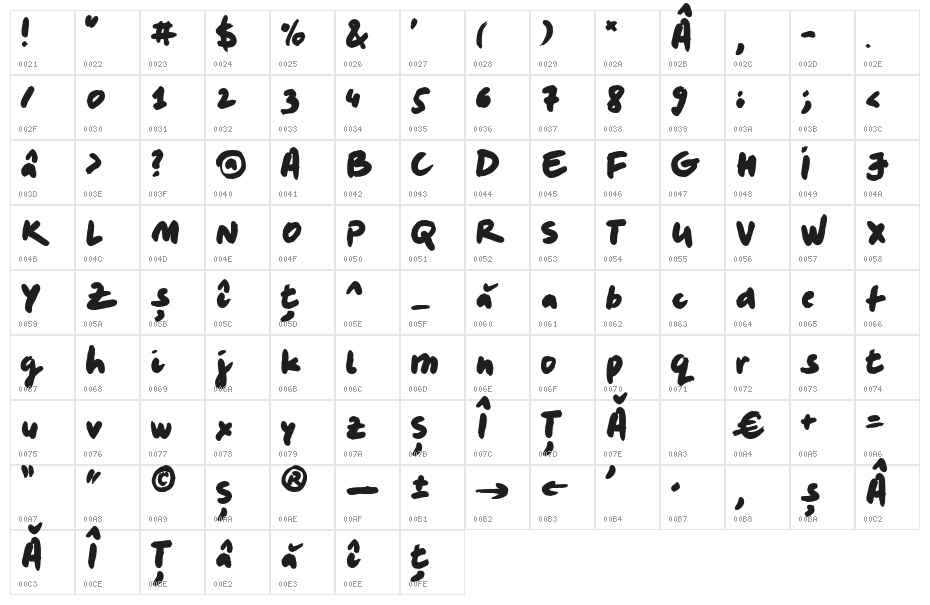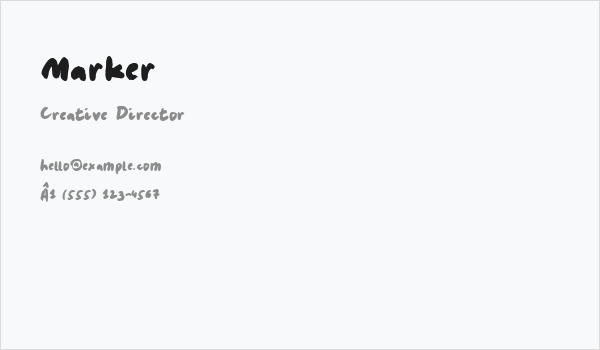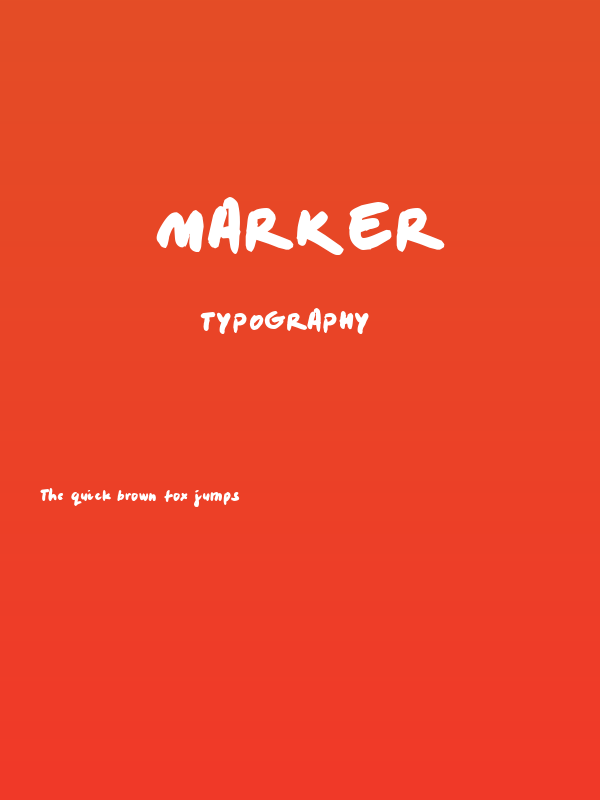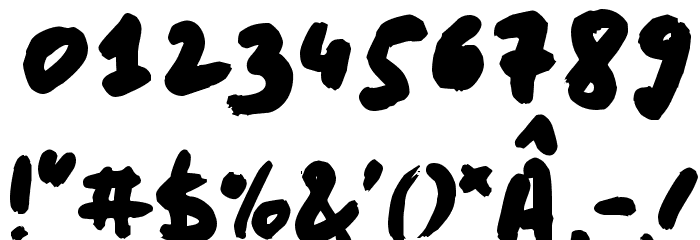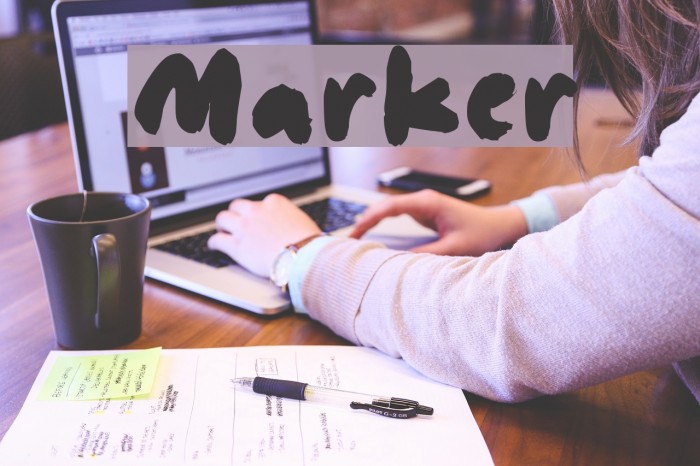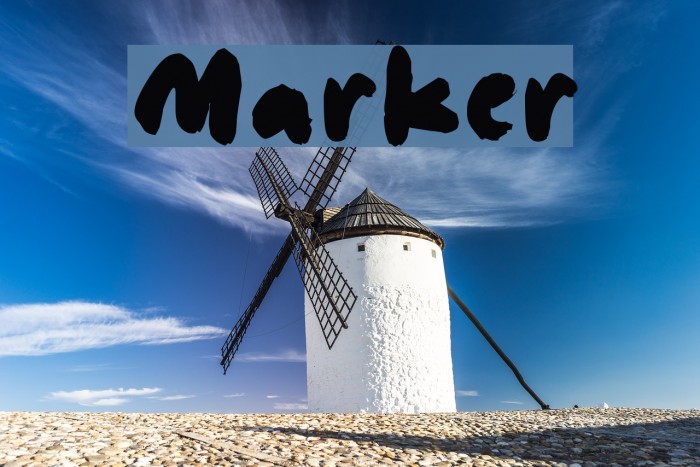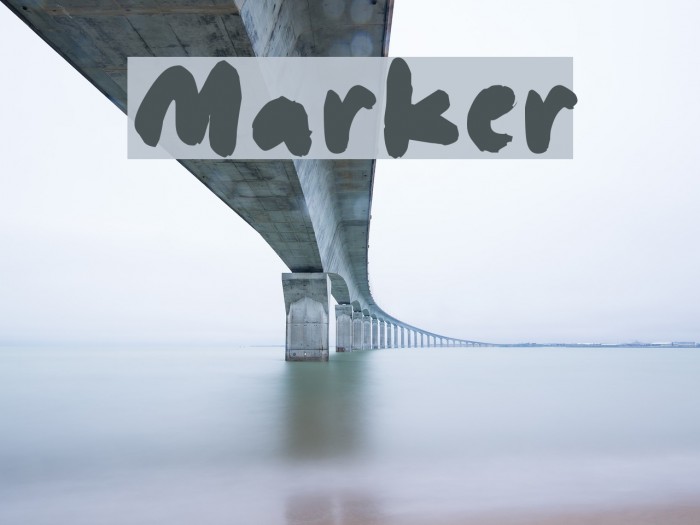
Marker Font
Marker Description
This font exudes a bold and expressive style, reminiscent of hand-drawn marker strokes. The characters are thick and rounded, with a casual and informal appearance. The uppercase and lowercase letters maintain a consistent weight, creating a cohesive look. The numbers and special characters follow the same bold style, ensuring uniformity across all glyphs. The font's organic and dynamic nature makes it suitable for projects that require a personal touch or a playful vibe. Its high contrast and irregular edges give it a lively and energetic feel, perfect for grabbing attention.
| Proposed Projects | Ideal for posters, greeting cards, children's books, and branding that requires a playful and personal touch. |